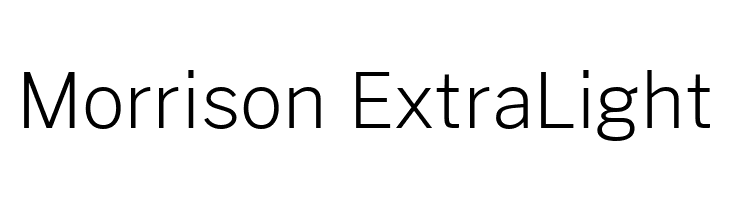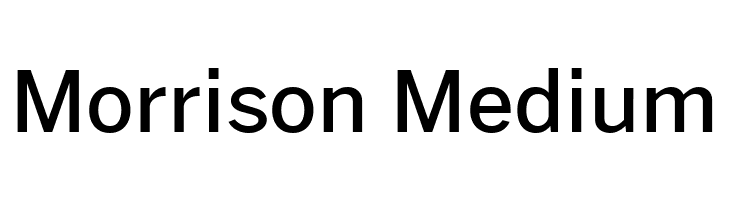
• Morrison ExtraLight 字体
A modern, extra light sans-serif font with clean lines and low contrast.
• Morrison ExtraLight Italic 字体
A sleek, modern extra light italic font with elegant slanted characters.
• Morrison Italic 字体
A sleek, modern italic font with smooth curves and clean lines.
• Morrison Light 字体
A clean, modern sans-serif typeface with uniform strokes and balanced spacing.
• Morrison Light Italic 字体
A sleek, modern, light italic font with smooth, low-contrast strokes.
• Morrison Medium 字体
A modern sans-serif font with clean lines and balanced proportions.
• Morrison Medium Italic 字体
A modern, medium-weight italic font with sleek, dynamic characters.
• Morrison SemiBold 字体
A modern sans-serif typeface with a semi-bold weight and geometric design.
• Morrison SemiBold Italic 字体
A sleek, semi-bold italic typeface with a modern and elegant style.
• Morrison Thin 字体
A modern, thin sans-serif font with clean lines and a minimalist aesthetic.